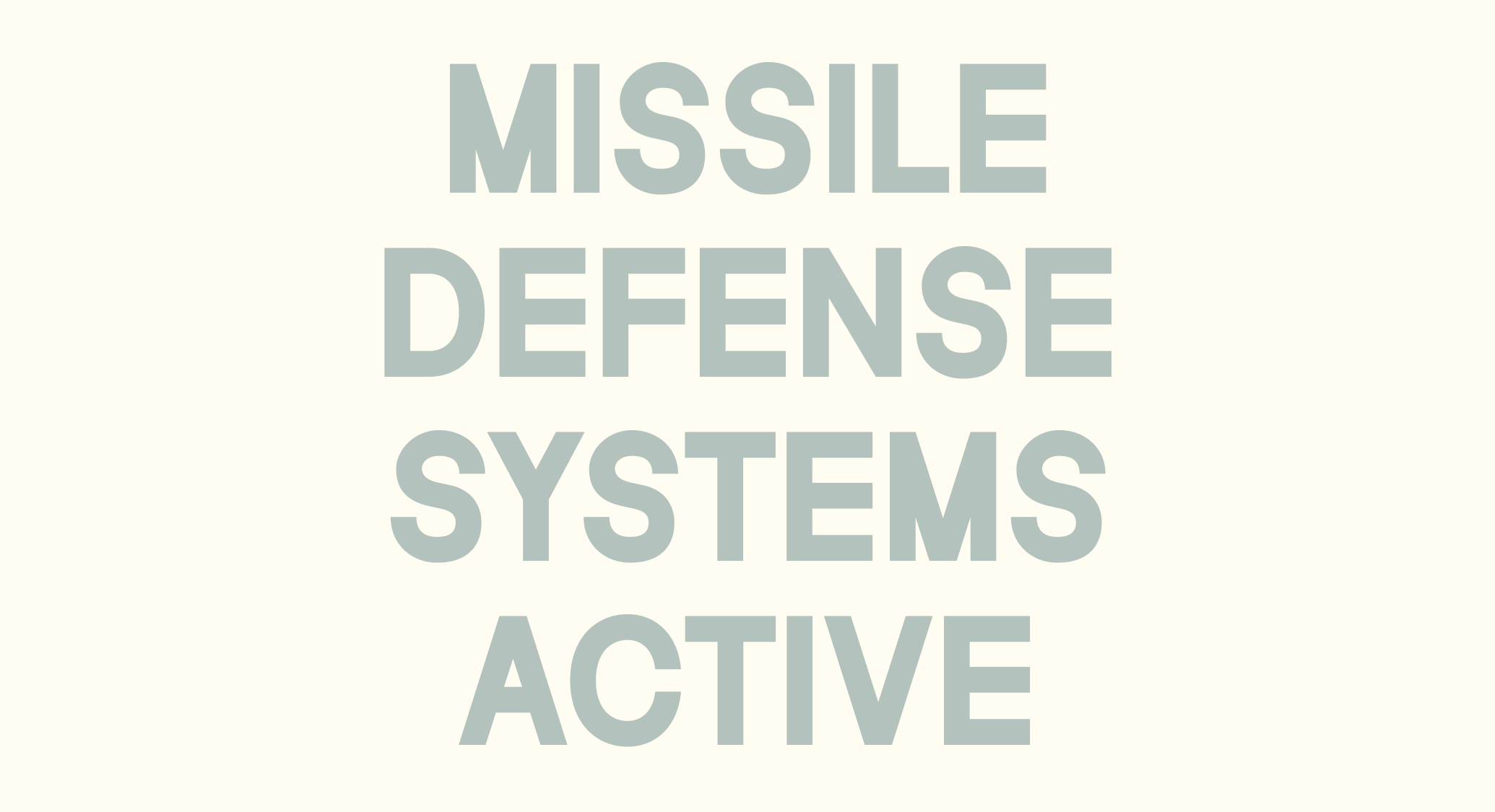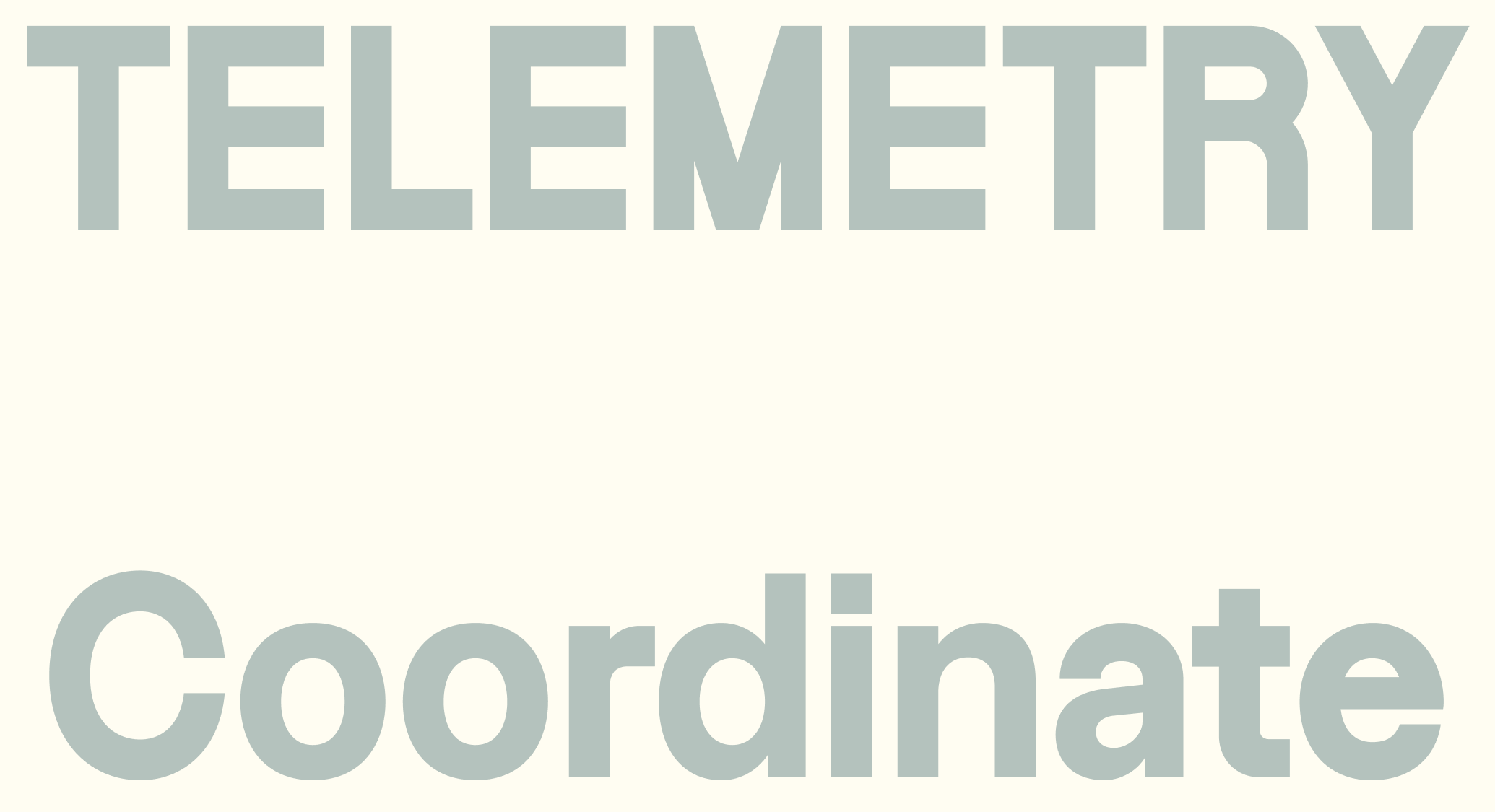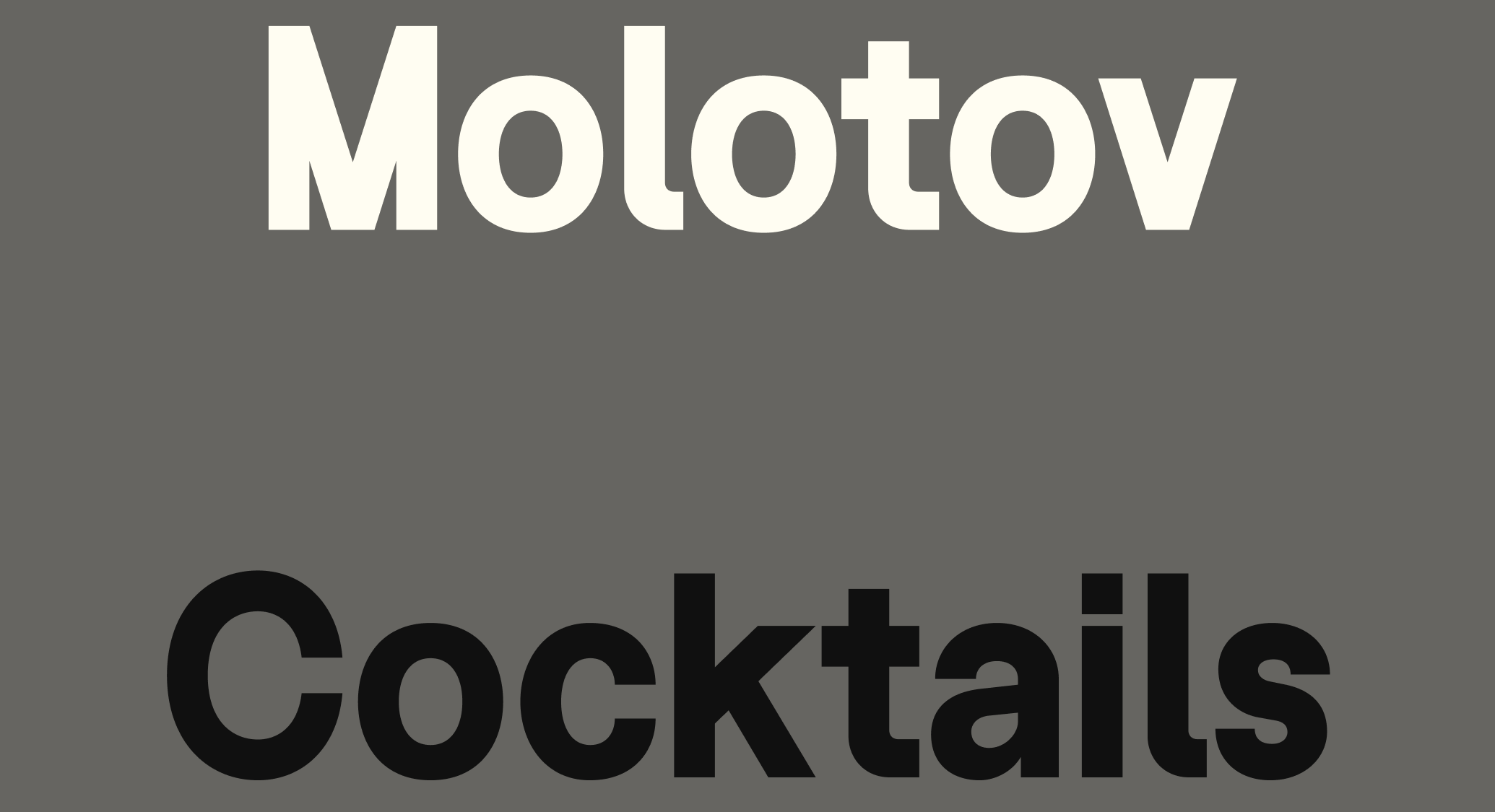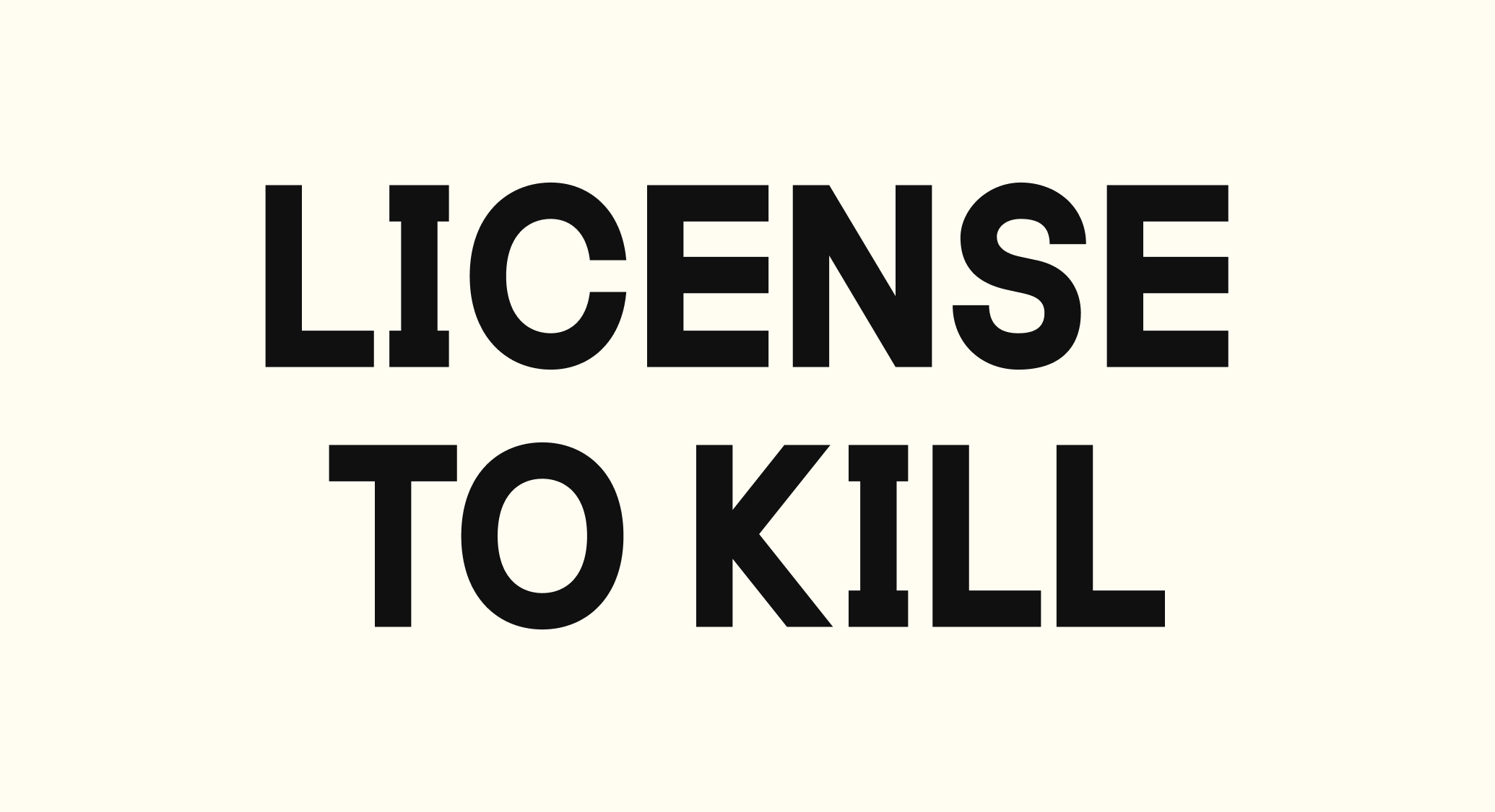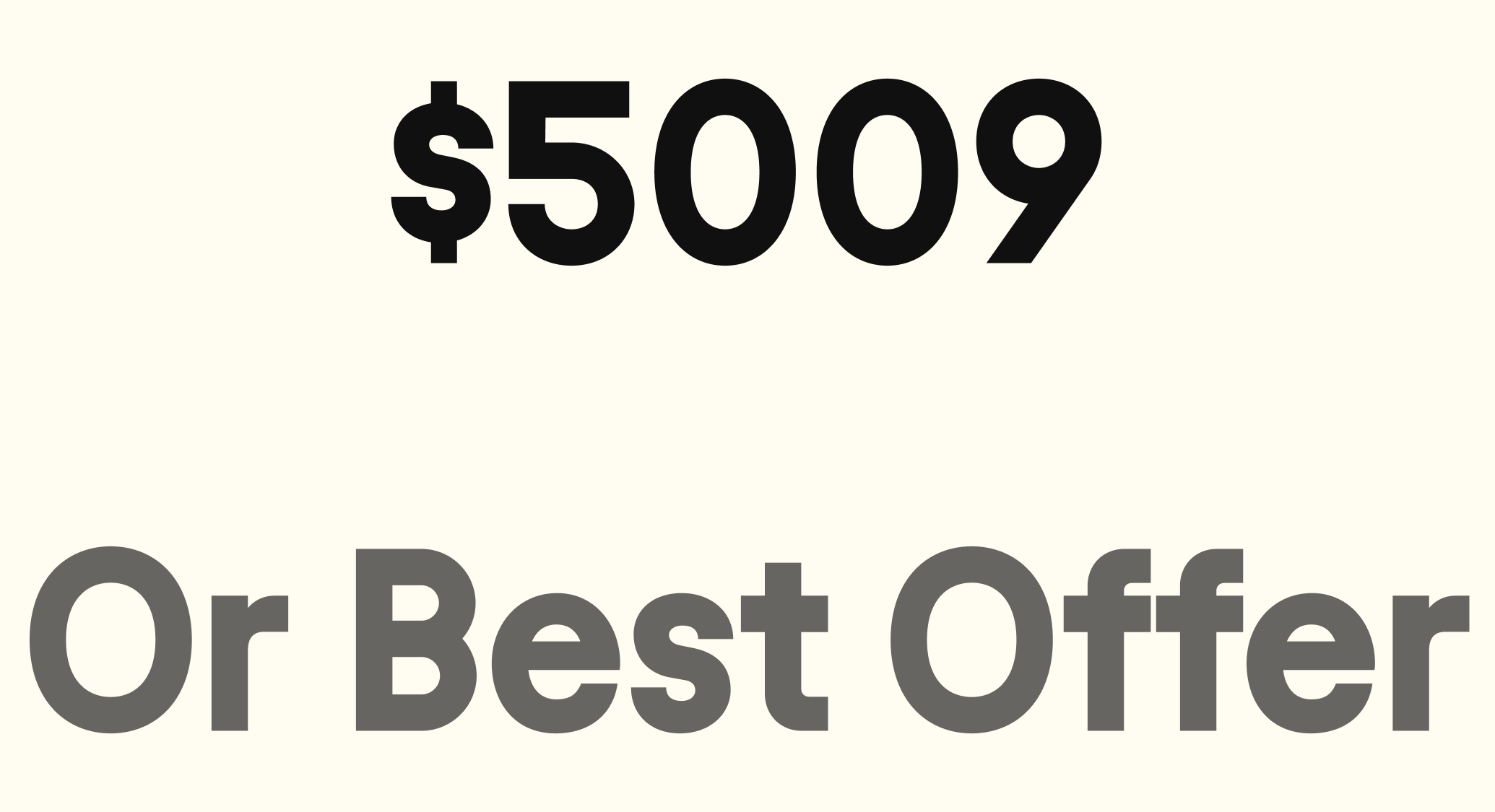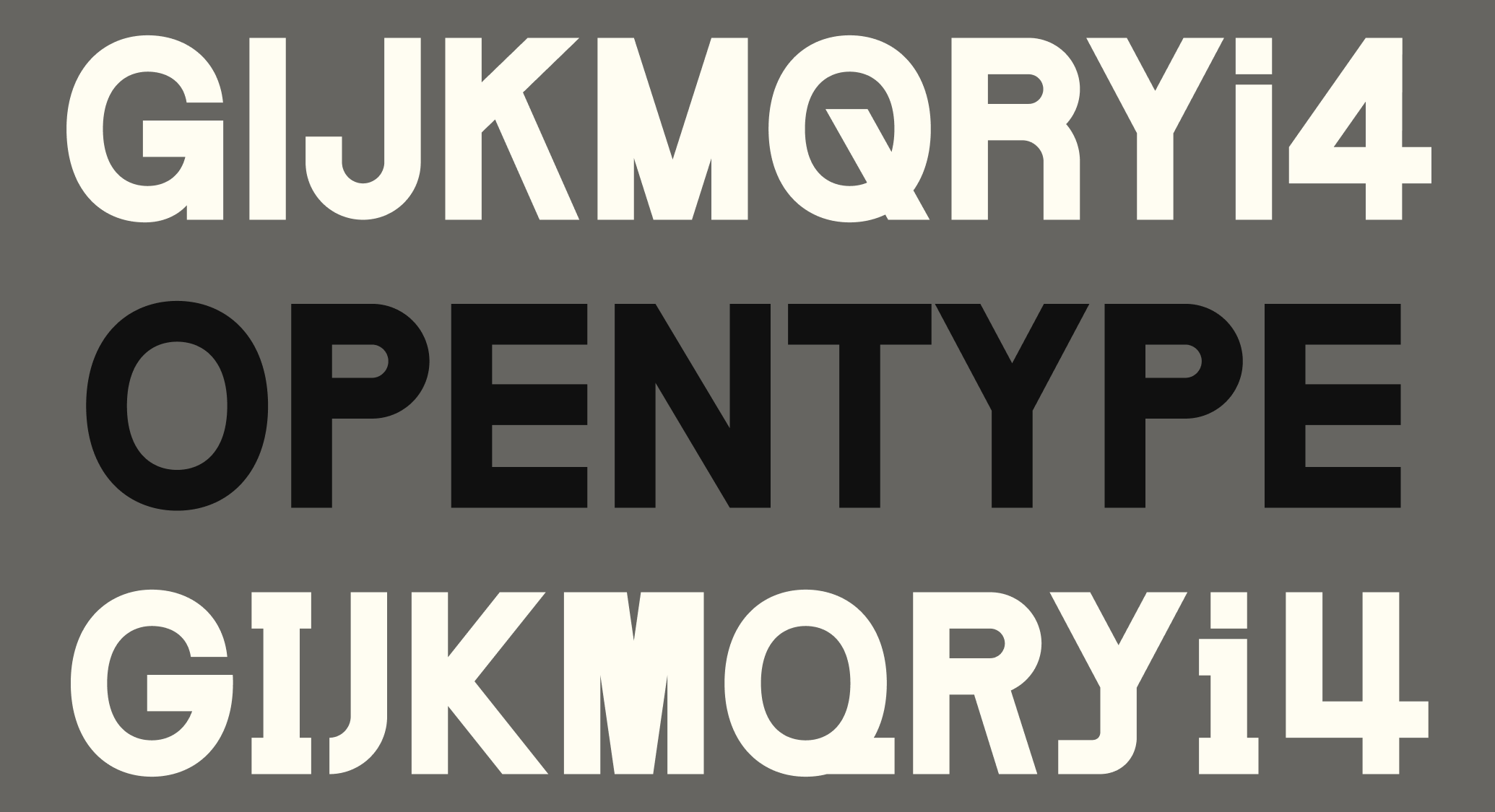
AF Millie
AF Millie is a rugged typeface with a fighting spirit. Bold, bulbous, unencumbered letterforms evoke the lumbering silhouettes of a Sherman tank or B-52 bomber. Each character possesses the weight and solidity of industrial machinery, thundering to life with the flip of a switch. With its commanding presence and historical homage, AF Millie makes bulletproof beautiful.